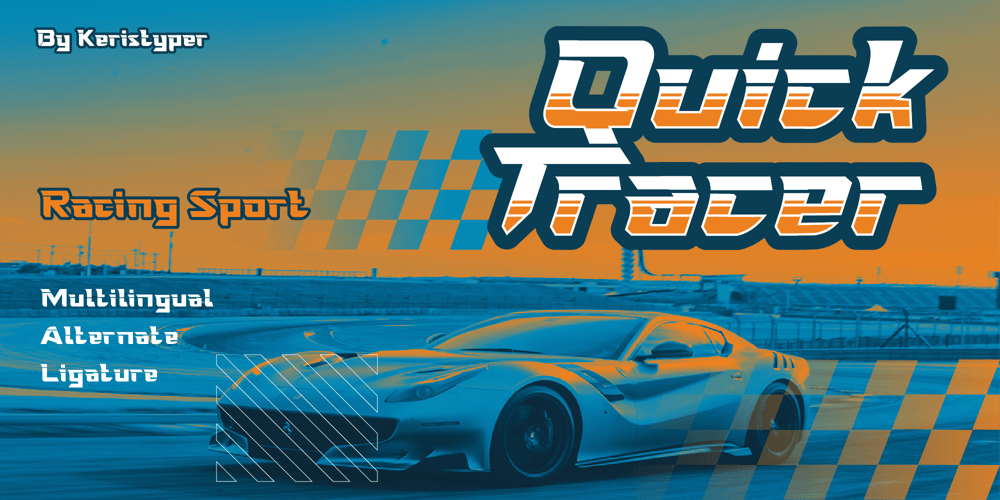
Quick Tracer Font Family was designed by Tezar Tantular and published by Keristyper Studio. Quick Tracer contains 1 styles and family package options. introduce Quick Tracer font with sporty modern cutouts and dynamic tilt. Ideal for fast car racing sports titles, running matches, cycling, automotive, and other modern dynamic monograms or texts. This font is good for logo design, Social media, Movie Titles, Books Titles, short text even long text letters, and good for your secondary text font with sans or serif.**Featured:*** Standard Uppercase & Lowercase* Numeral & Punctuation* Multilingual : ä ö ü Ä Ö Ü ß ¿ ¡* Alternate & Ligature* PUA encodedWe recommend programs that support the OpenType feature and the Glyphs panel such as Adobe applications or Corel Draw. so you can use all the variations of the glyphs.Hope you enjoy our fonts!